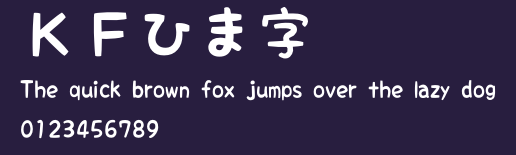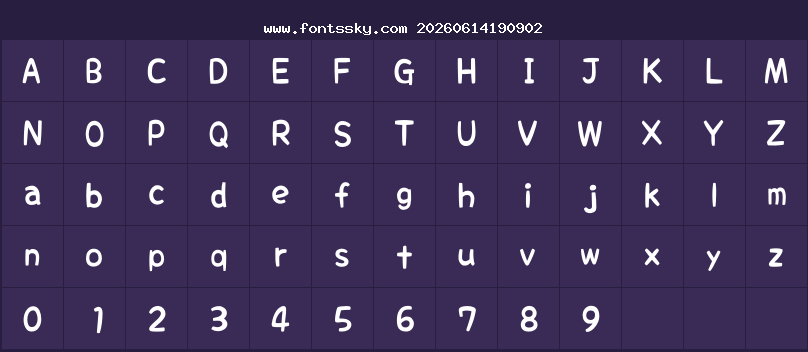
About KFひま字.otf
KFひま字.otf is a modern, elegant sans-serif font designed for ultimate readability and visual harmony. Perfect for branding, headlines, web design, and print materials.